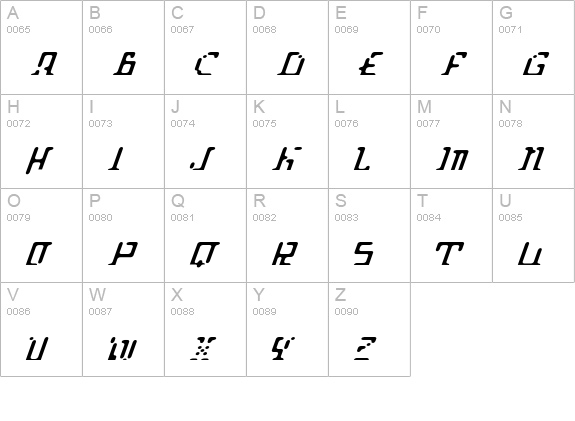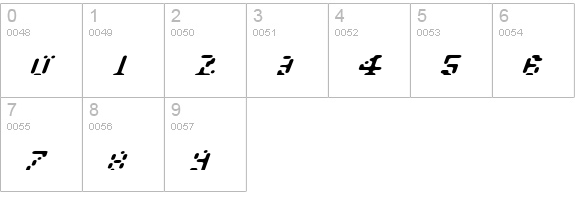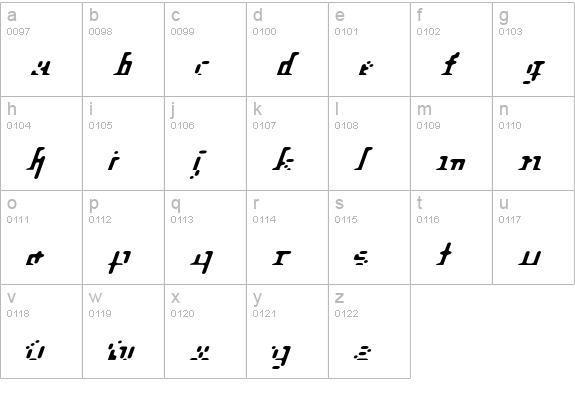
Underthrow Font Details
Underthrow is a visually stunning and versatile font that adds a touch of elegance and sophistication to any design project. With its sleek and modern appearance, this font is perfect for creating eye-catching logos, headlines, and branding materials. The unique and creative design of Underthrow is sure to make your text stand out from the crowd. Its strong and bold letterforms give a sense of power and confidence, while its delicate curves and subtle details add a touch of refinement. Whether you're designing a website, print materials, or social media graphics, Underthrow is the perfect choice to bring your ideas to life. Its clean and crisp lines ensure readability, while its stylish and contemporary look adds a touch of personality to your designs. But what makes Underthrow even more appealing is that it is freely available to download at FontsMarket.com. This means that you can use this incredible font in your projects without any cost. Whether you're a professional designer or a hobbyist looking to add a creative touch to your work, Underthrow is the perfect font for you. So why wait? Download Underthrow today and unleash your creativity. With its stunning design and the fact that it is free to download, Underthrow is a font that you simply can't afford to miss.